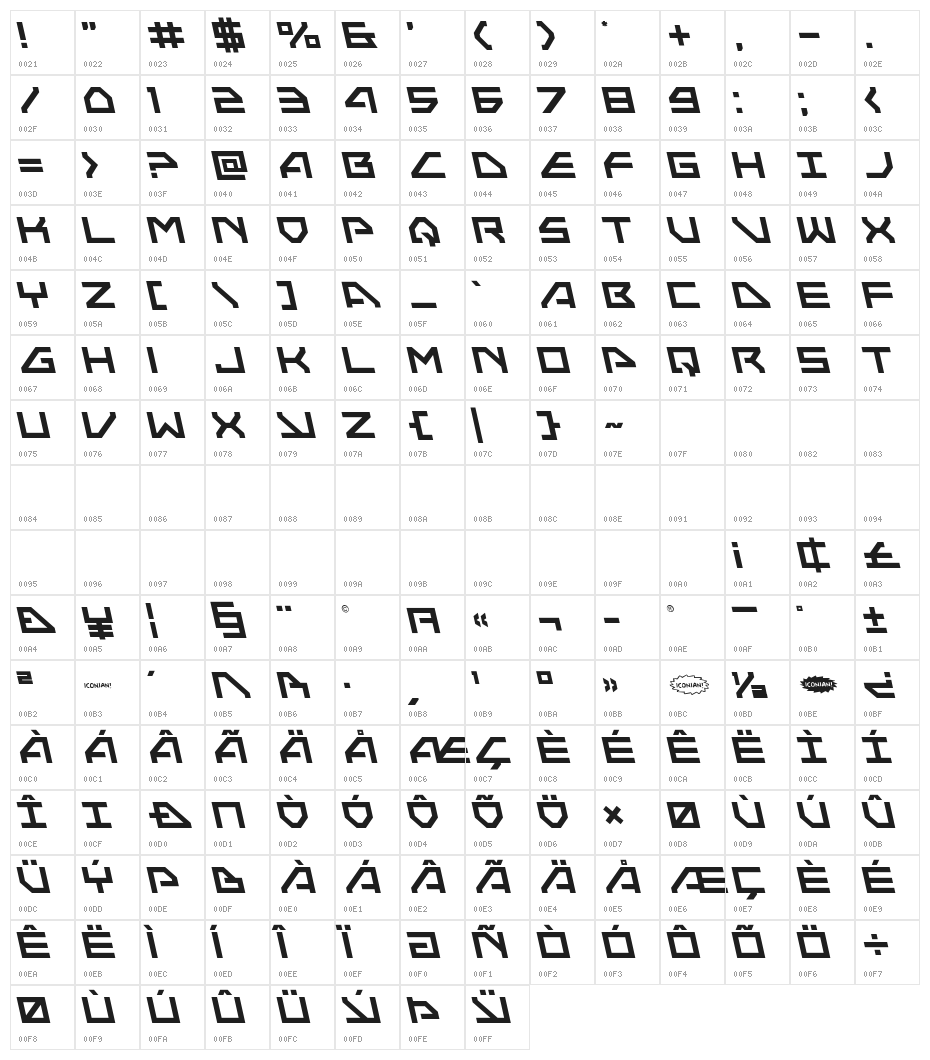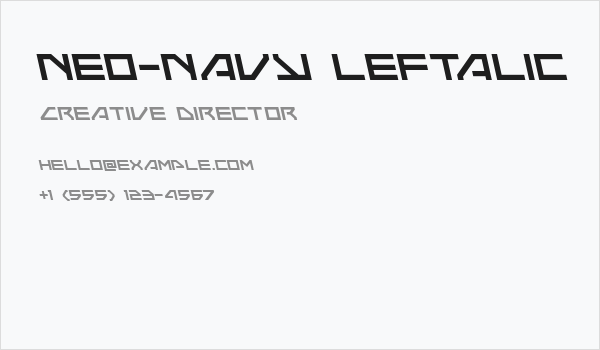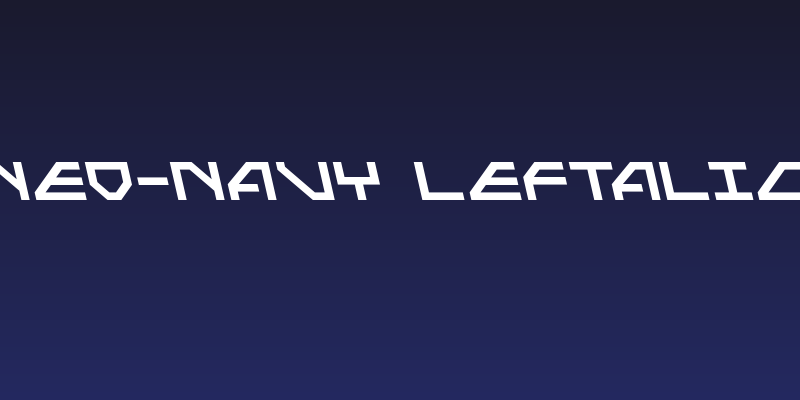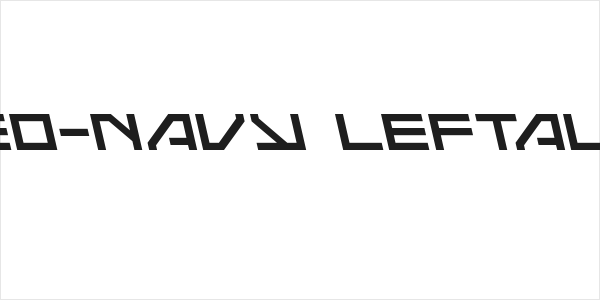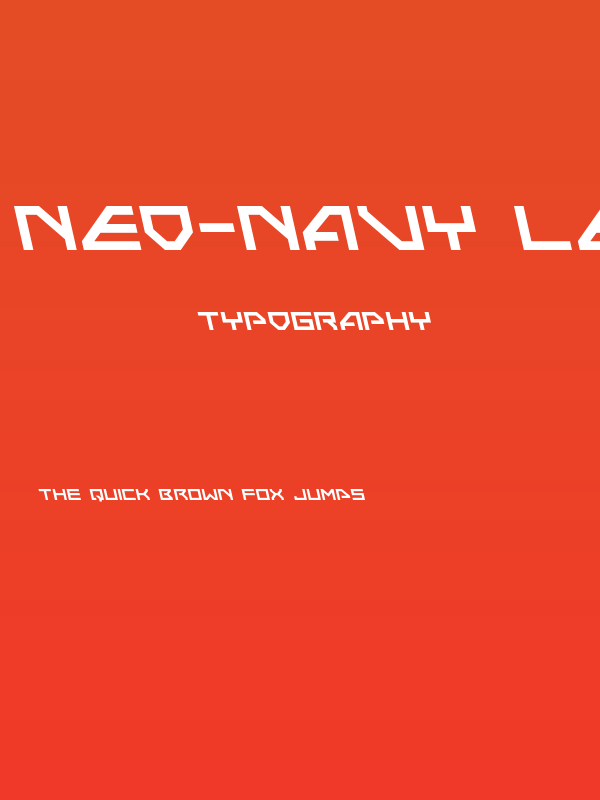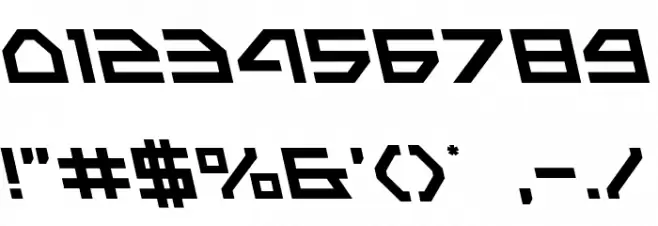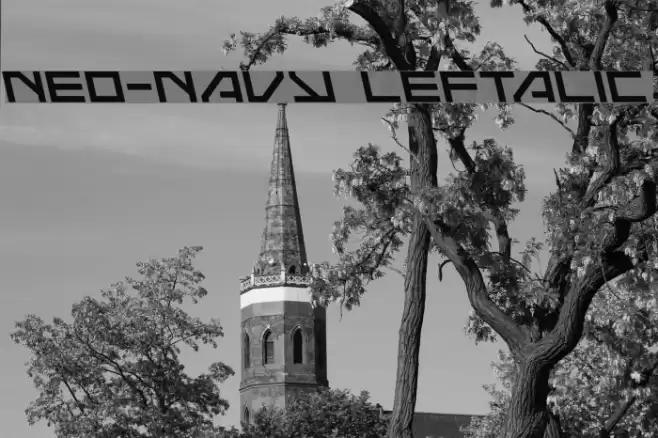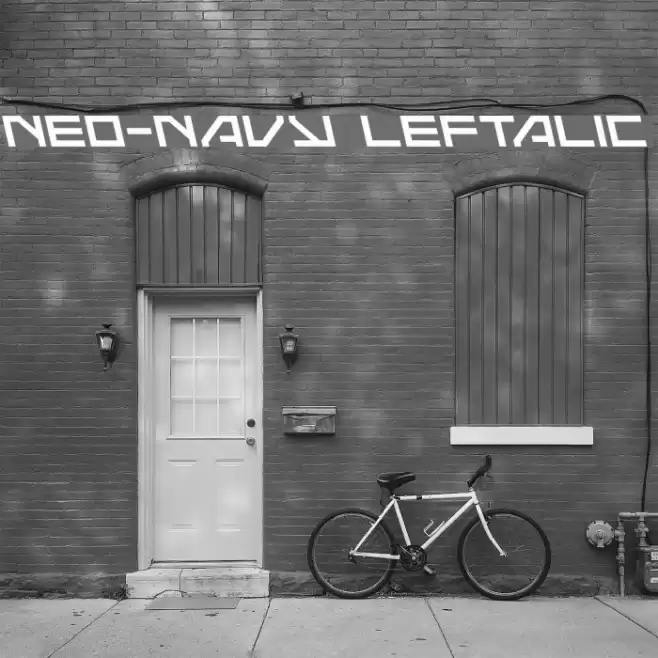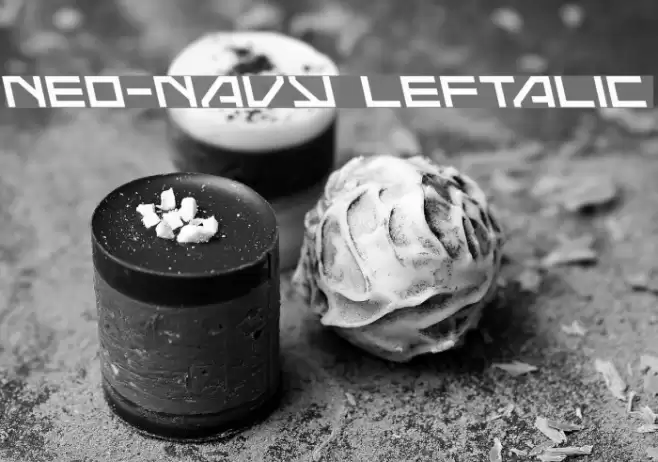
Neo-Navy Leftalic Font
This font features a bold, angular design with a futuristic and geometric aesthetic. The characters are constructed with sharp, straight lines and distinct angles, giving them a dynamic and edgy appearance. The uppercase and lowercase letters maintain a consistent style, with a slight slant to the left, enhancing the sense of movement and modernity. The numerals and special characters follow the same design principles, ensuring uniformity across the typeface. The overall look is reminiscent of digital or sci-fi themes, making it suitable for projects that require a contemporary and bold statement.